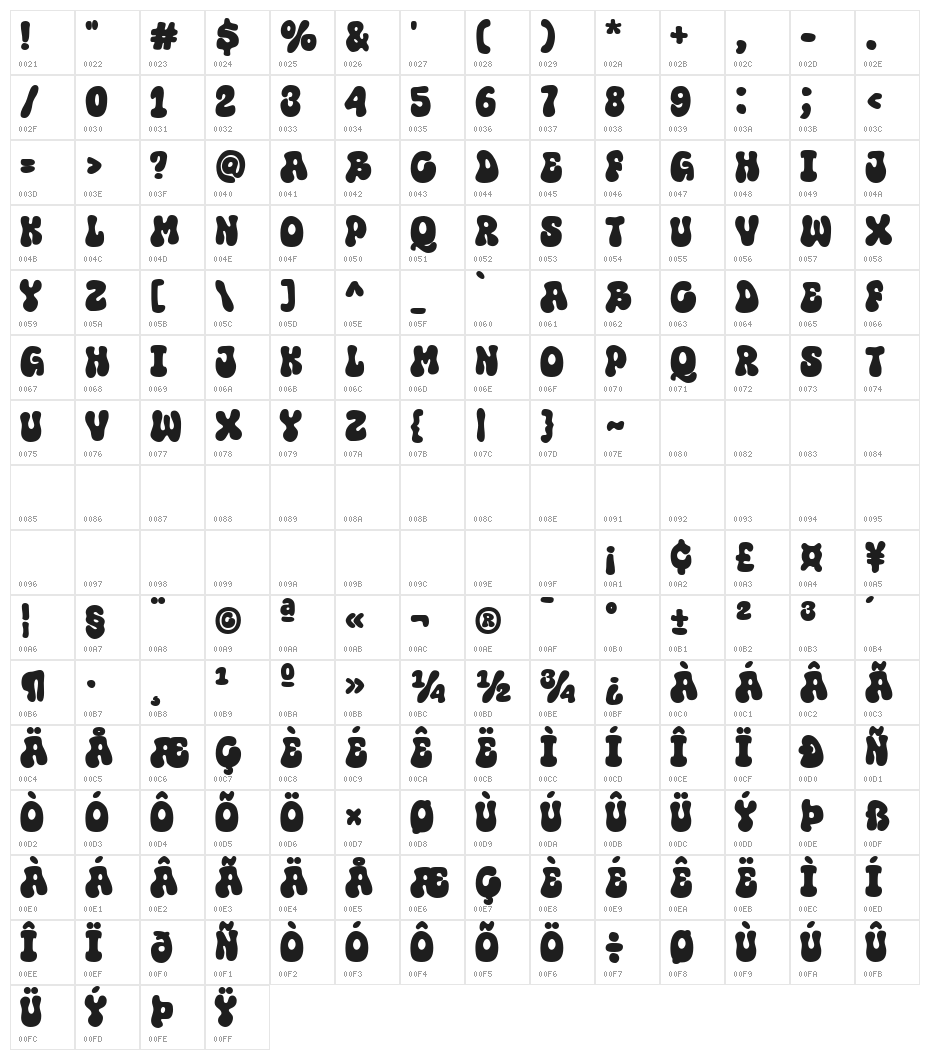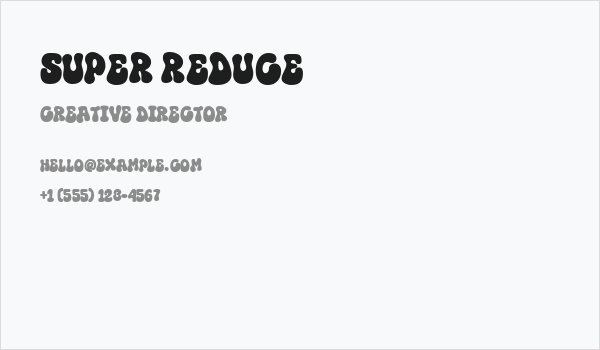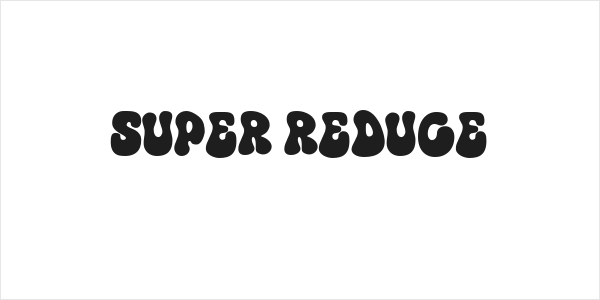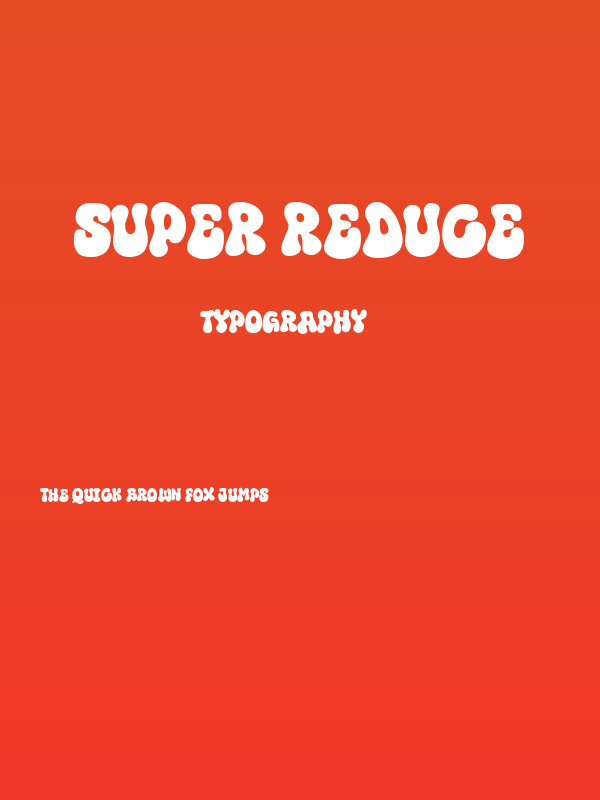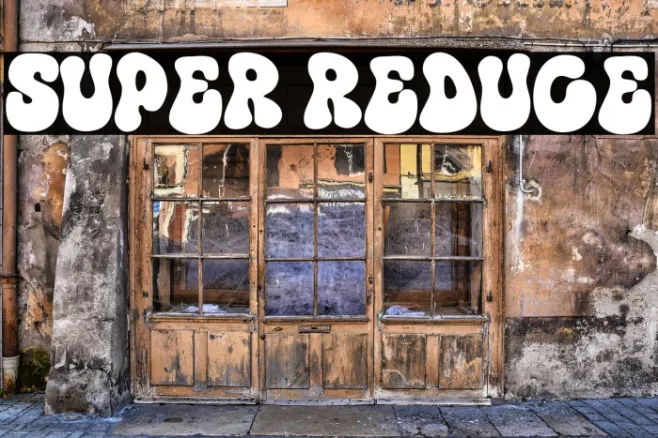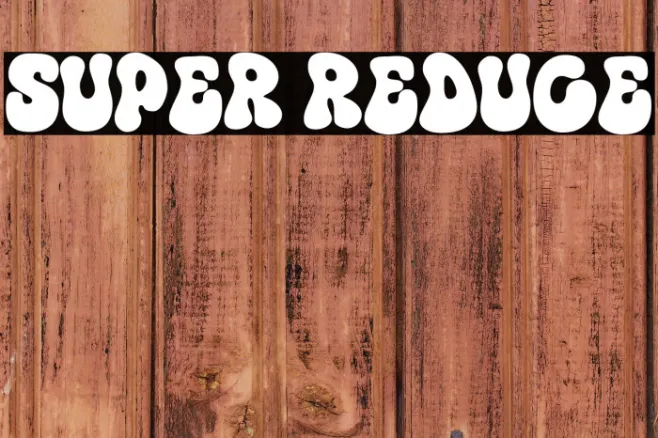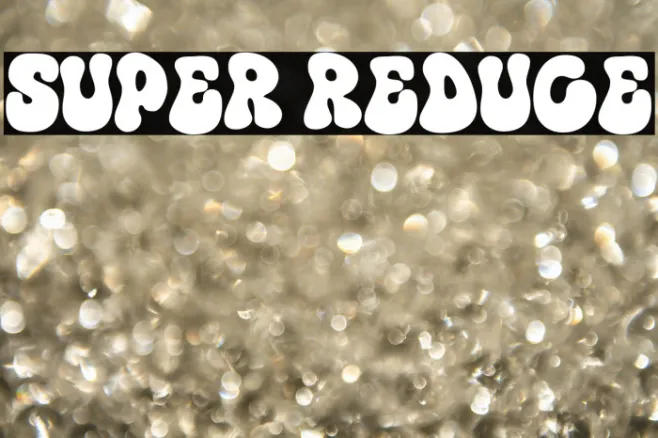
Super Reduce Font
Super Reduce Description
This font features a bold, playful style with rounded, bubble-like characters that convey a sense of fun and whimsy. The letters are thick and robust, with a consistent stroke weight that gives them a strong presence. The characters have a soft, rounded appearance, reminiscent of inflated balloons or cartoonish shapes, making them highly distinctive and eye-catching. The font includes both uppercase and lowercase letters, numbers, and a variety of special characters, all maintaining the same bubbly aesthetic. This style is particularly suited for designs that aim to capture attention and convey a lighthearted or informal tone.
| Proposed Projects | Ideal for children's books, playful branding, party invitations, and any project needing a fun, informal touch. |